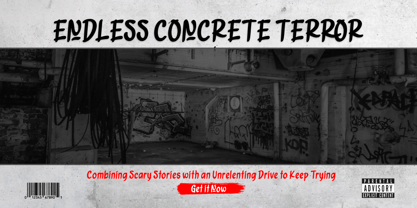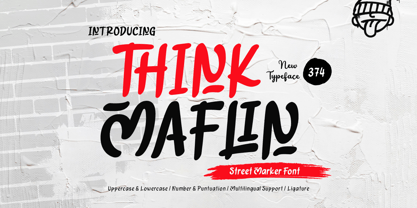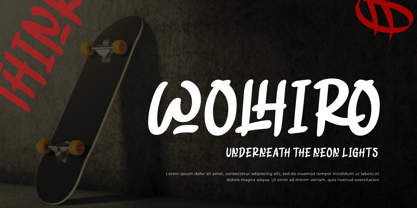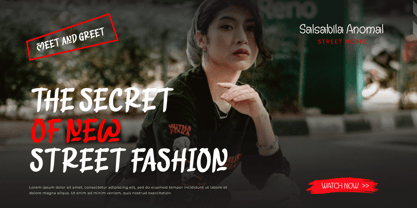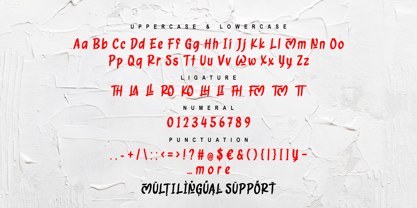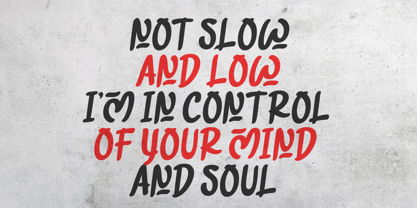
Think Maflin
by Trabas Kriya
The Think Maflin Font Family was designed by Murozakul Akhsan and published by Trabas Kriya. Think Maflin contains 1 styles. More about this family
Think Maflin - Street Marker Font captures the authentic, raw feel of hand-drawn street markers. With its free-flowing lines and urban edge, this font is perfect for streetwear designs, graffiti-inspired posters, music covers, and anything that needs a casual yet expressive touch. Think Maflin adds a creative, street-style vibe to your projects, giving them an artistic, spontaneous feel.
Infuse your designs with the rebellious energy of street art using Think Maflin.
Designers: Murozakul Akhsan
Foundry: Trabas Kriya